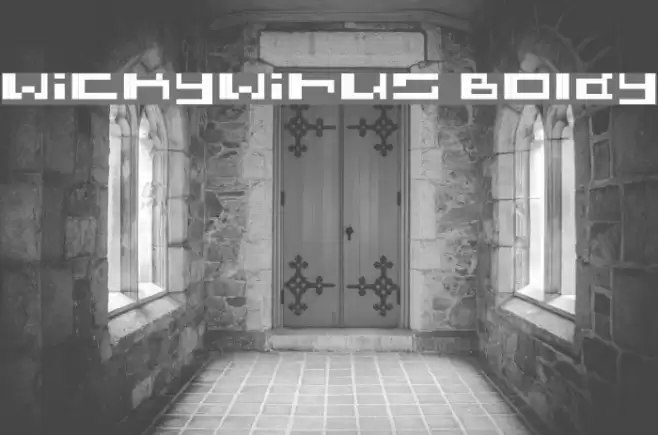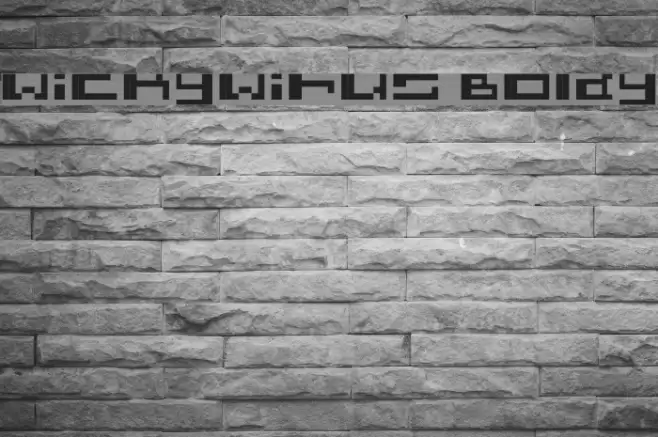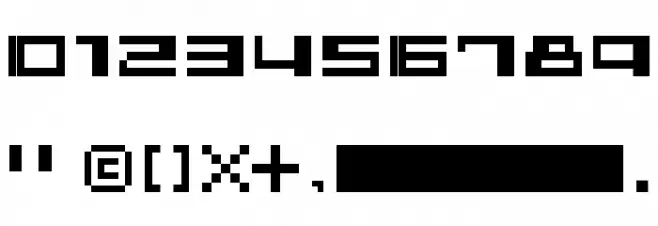
wickywirus Boldy Font
wickywirus Boldy Description
This font features a bold, geometric style with a pixelated, blocky appearance reminiscent of early digital or video game aesthetics. The characters are uniformly wide, with sharp angles and straight lines, creating a sense of uniformity and precision. The uppercase and lowercase letters maintain a consistent height, contributing to a cohesive look. Numbers and special characters follow the same design principles, ensuring visual harmony across all elements. The font's distinct style makes it stand out, ideal for projects that require a retro or tech-inspired feel.
A bold, pixelated font with a geometric, digital aesthetic from Uncategorized fonts.
- Overall Style: Retro, Digital